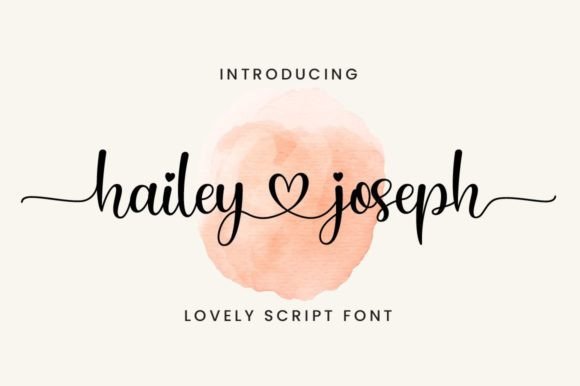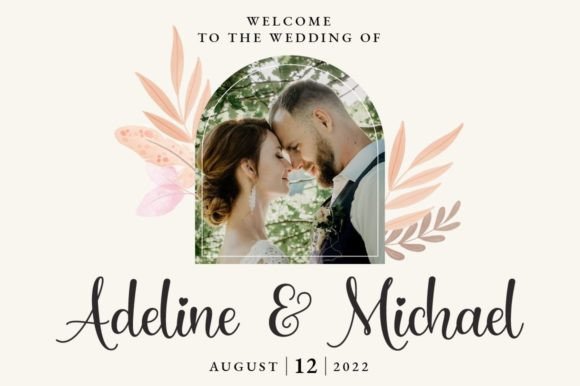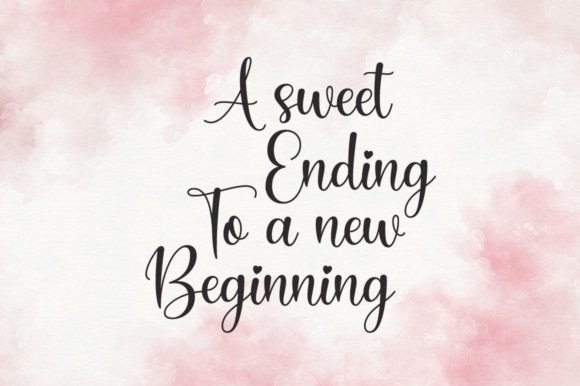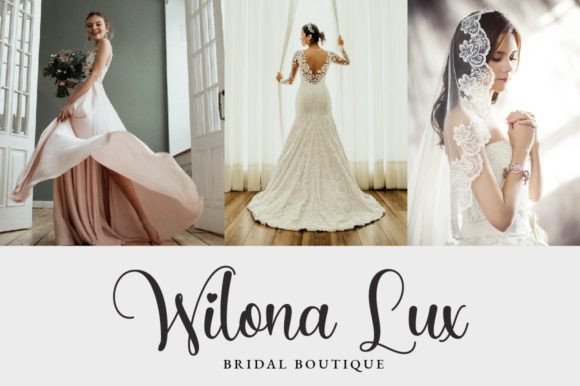
Hailey Joseph Font: Elegant Calligraphy Script for Wedding & Logo Design
About the Hailey Joseph Font
The Hailey Joseph Font offers a perfect balance of form and function for your design needs. Hailey Joseph is a modern calligraphy font with smooth handwritten flows. Hailey Joseph is perfect for logos, wedding stationery, cards, gift designs, photography, watermark, product packaging, and handwritten quotes.
Hailey Joseph’s elegant and slightly playful personality makes it ideal for branding projects requiring a touch of sophistication, particularly logos, invitations, and short-form marketing materials. It excels in headlines, short quotes, and packaging design where its calligraphic nature adds a premium feel. However, its less-than-optimal legibility makes it unsuitable for body text or UI elements.
Consider pairing Hailey Joseph with a clean sans-serif like Lato for a contemporary feel, or a classic serif such as Garamond for a more traditional look. For a bolder contrast, a geometric sans-serif like Montserrat could be effective.
Avoid using it in situations requiring extensive readability, such as lengthy documents or website content. The swashes add visual interest but can hinder legibility in smaller sizes or extended text.
Hailey Joseph Font Usage Examples